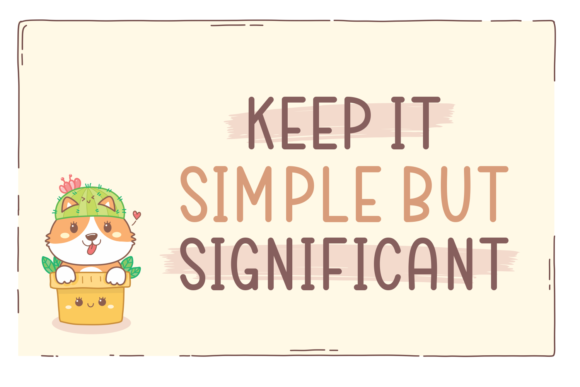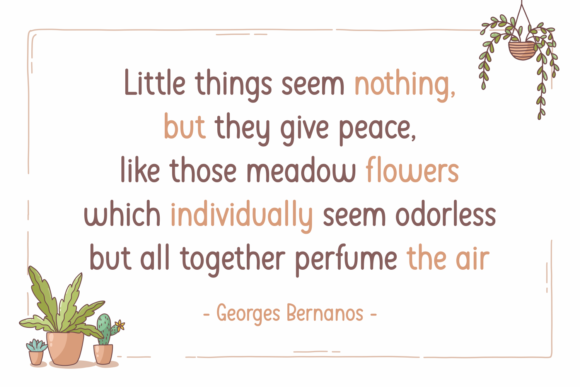
Natural Creative Font
db-ku.com - Script & Handwritten -- Natural Creative is a thin and simple handwritten font that can be used for all chalkboard quotes or teaching material! Its authentic look and feel will add a personal and realistic feel to your designs.